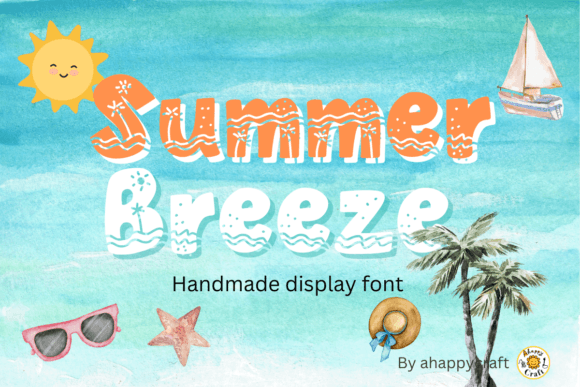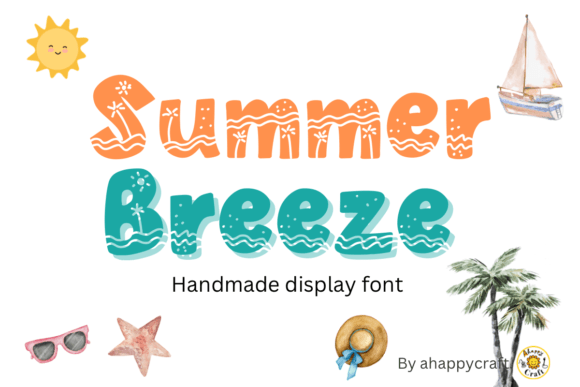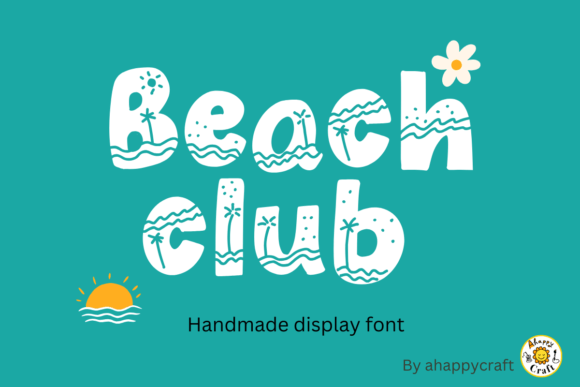
Summer Breeze Font
Summer Breeze is a fun and relaxed decorative font. Add it to your summer-themed projects, pool party posters, and vacation stickers and you will love the results!